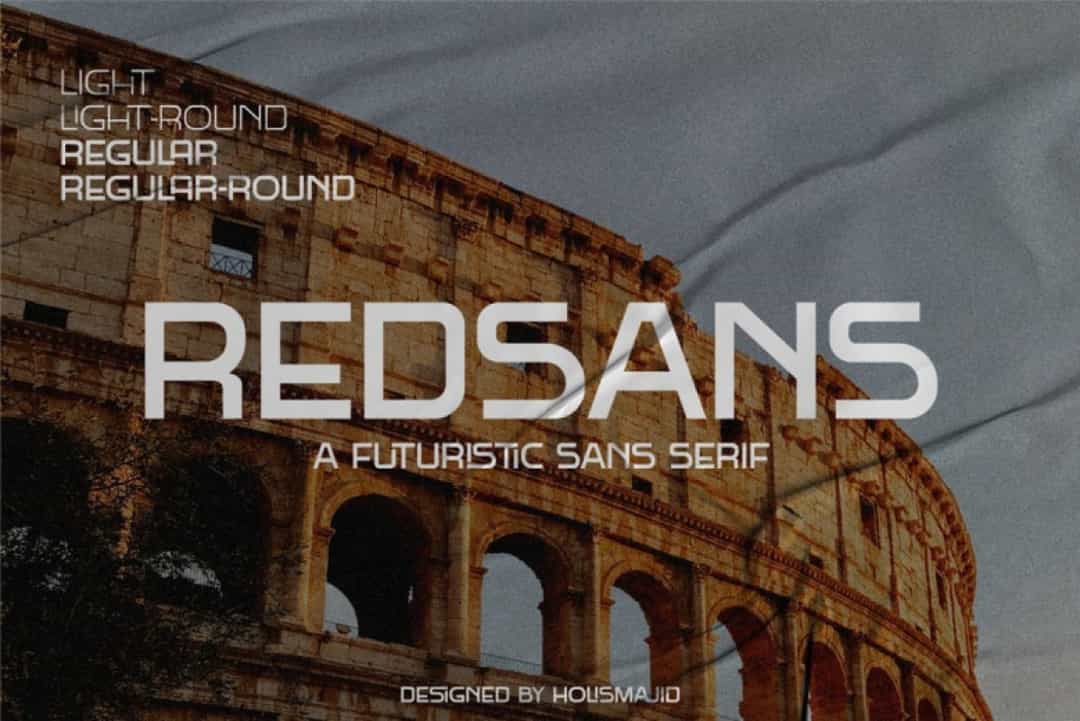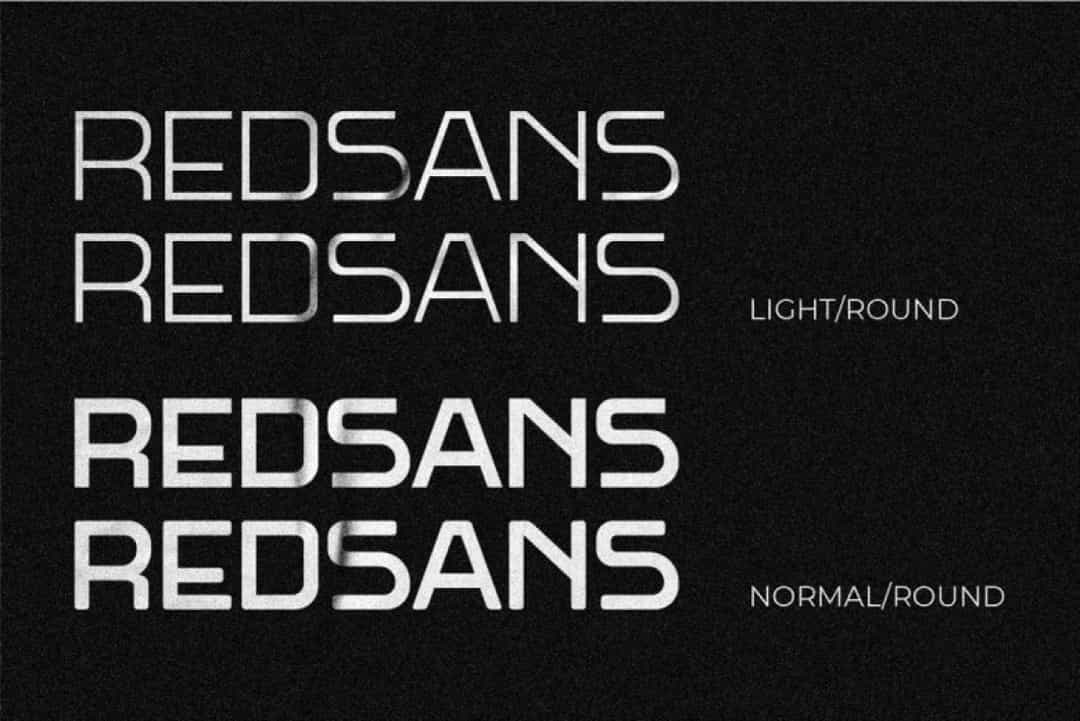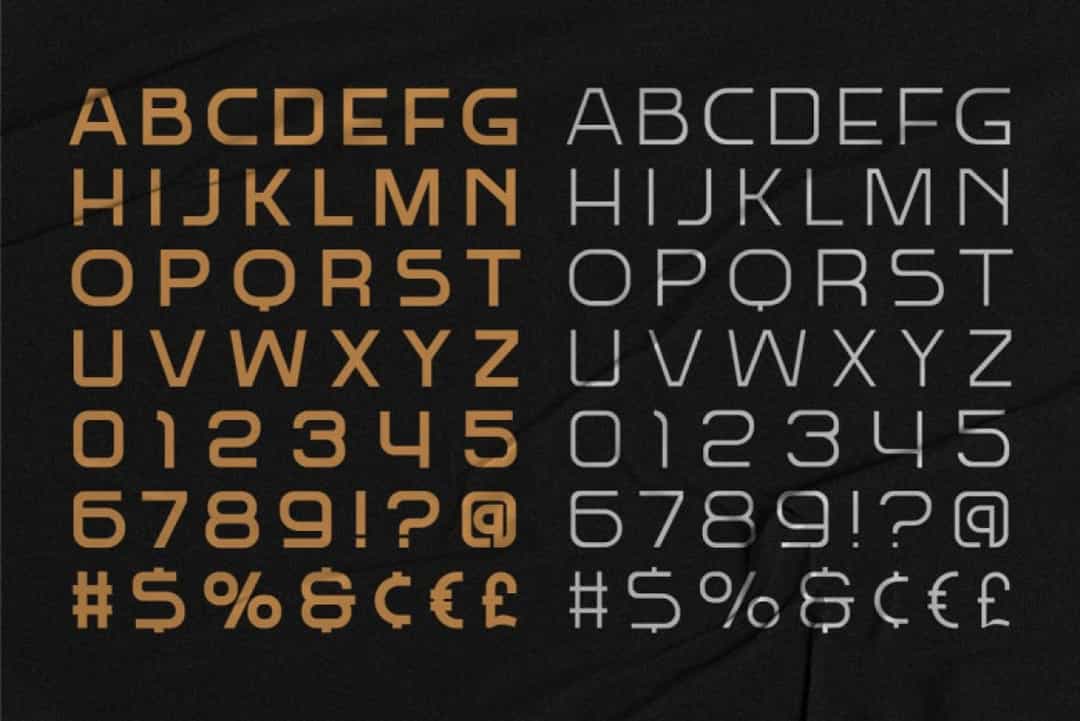
Redsans is a beautiful futuristic sans serif font that is designed by 24Design Studios and is available for free download and personal use. The free version provides all uppercase and lowercase letters and a few special characters too. This font designed font you daily designs such as logo, social media and posters.